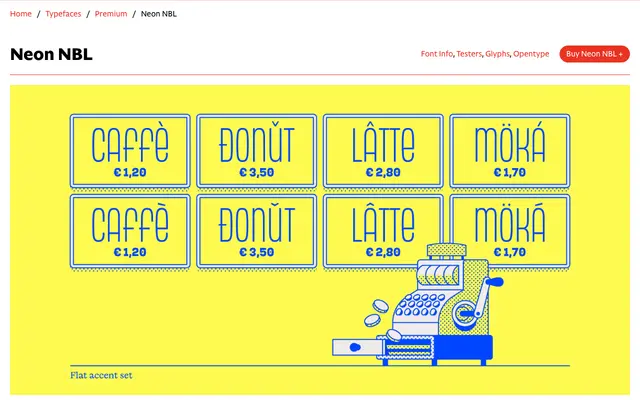
Neon NBL
CAST · Alessandro Colizzi · 2019
Neon NBL specimen from CAST
A faithful digital revival of Giulio Da Milano's 1936 Nebiolo typeface, expanded by Alessandro Colizzi into a 42-style family spanning seven widths and five weights, with a shaded Ombra variant.
Originally issued by Nebiolo in varying widths tied to specific type sizes, the design has been rationalised into a coordinated system running from UltraCondensed to Wide, each width offered in Thin through Bold plus the decorative Ombra shade. The monocase geometric construction is tempered by optical corrections at stem junctions and terminals, making it usable at text sizes as well as for headlines and signage. In 2022 it was selected for the Moët Hennessy office building signage in Paris by Barbarito Bancel and +fortuna.
A monocase geometric sans-serif with modular construction, based on the 1936 Nebiolo typeface by Giulio Da Milano. The geometric structure and single-case design place it firmly in the geometric sans tradition.